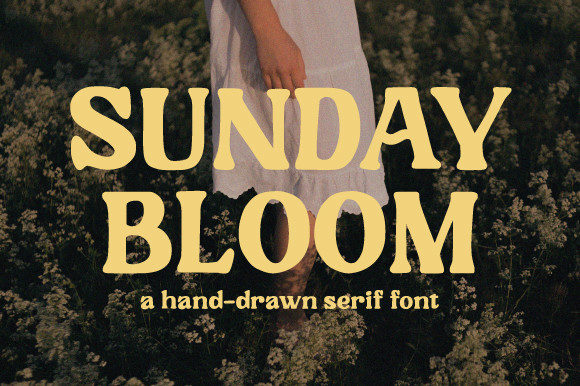
Sunday Bloom Font: A Retro-Styled Display Font for Bold Designs
Sunday Bloom font is a stylish and versatile display font that has gained popularity among designers and artists. Its unique blend of bold, simple, and rustic elements makes it an ideal choice for designs that require a touch of nostalgia and character. In this article, we’ll explore the features, benefits, and uses of Sunday Bloom font, and why it’s a great addition to your typography collection.
What is Sunday Bloom Font?
Sunday Bloom font is a cool and retro-styled display font designed to add a bold and simple look to your designs. Its rustic touch gives it a distinctive character that sets it apart from other fonts. The font is perfect for headlines, titles, and short paragraphs of text, making it a great choice for a variety of design projects, from posters and flyers to logos and branding materials.
Key Features of Sunday Bloom Font
- Retro Style: Sunday Bloom font has a distinctly retro feel, reminiscent of classic designs from the 1950s and 60s.
- Bold and Simple: The font features bold lines and simple shapes, making it easy to read and understand.
- Rustic Touch: A subtle rustic touch gives Sunday Bloom font a unique character that adds warmth and personality to your designs.
- Versatile: The font is suitable for a wide range of design projects, from posters and flyers to logos and branding materials.
Benefits of Using Sunday Bloom Font
There are several benefits to using Sunday Bloom font in your designs:
- Instant Recognition: The font’s bold and simple design makes it easy to read and understand, even at a distance.
- Unique Character: The rustic touch gives Sunday Bloom font a distinctive character that sets it apart from other fonts.
- Easy to Pair: The font pairs well with a variety of other fonts, making it easy to create harmonious and visually appealing designs.
- Highly Versatile: Sunday Bloom font can be used for a wide range of design projects, from posters and flyers to logos and branding materials.
Uses of Sunday Bloom Font
Sunday Bloom font is a versatile font that can be used for a wide range of design projects, including:
- Posters and Flyers: The font’s bold and simple design makes it perfect for headlines and titles.
- Logos and Branding Materials: Sunday Bloom font can be used to create unique and memorable logos and branding materials.
- Signage and Displays: The font’s rustic touch makes it a great choice for signage and displays that require a touch of nostalgia and character.
- Digital Media: Sunday Bloom font can be used for digital media, such as social media graphics, videos, and presentations.
Tips for Using Sunday Bloom Font
Here are some tips for using Sunday Bloom font effectively in your designs:
- Use it Sparingly: Sunday Bloom font is a bold font, so use it sparingly to avoid overwhelming your design.
- Pair it with Other Fonts: The font pairs well with a variety of other fonts, so experiment with different combinations to find the one that works best for your design.
- Experiment with Colors: Sunday Bloom font looks great in a variety of colors, so experiment with different colors to find the one that works best for your design.
- Pay Attention to Kerning: Make sure to pay attention to kerning when using Sunday Bloom font, as it can make a big difference in the overall look and feel of your design.
Sunday Bloom font is a unique and versatile display font that can add a touch of nostalgia and character to your designs. Its bold and simple design, combined with its rustic touch, makes it a great choice for a wide range of design projects. By following the tips outlined in this article, you can use Sunday Bloom font effectively and create designs that are both visually appealing and memorable.
- What is Sunday Bloom font?: Sunday Bloom font is a cool and retro-styled display font designed to add a bold and simple look to your designs.
- What are the key features of Sunday Bloom font?: The font features a retro style, bold and simple design, rustic touch, and versatility.
- What are the benefits of using Sunday Bloom font?: The font offers instant recognition, unique character, ease of pairing, and high versatility.
- What are some uses of Sunday Bloom font?: The font can be used for posters and flyers, logos and branding materials, signage and displays, and digital media.